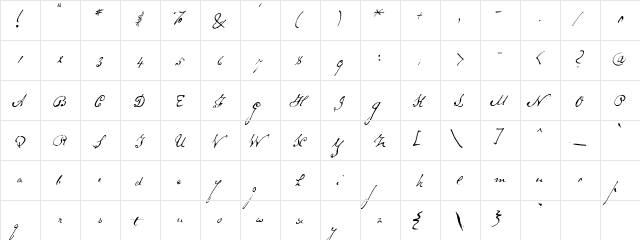
HW, FountPen - Schooner Script Regular
| Foundry | Three Islands Press |
| Designer | Brian Willson |
Design Context for HW, FountPen - Schooner Script Typeface
HW, FountPen - Schooner Script brings a calligraphic fluidity to the page — its connecting strokes and expressive curves give it an unmistakably human quality.